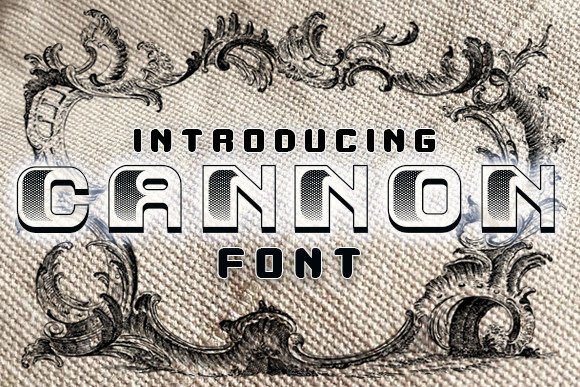
The Ultimate Guide to Cannon Font: Elevate Your Designs with a Retro 3D Twist
Ah, the thrill of working on a creative project, only to hit a roadblock when searching for the perfect font. I recall a particularly frustrating experience while designing a poster for a client’s music festival. The theme was retro-futuristic, and I needed a font that would transport the audience back to the ’80s. That’s when I stumbled upon Cannon Font – a game-changing, 3D retro typeface that instantly elevated my design.
An Honest Review of Cannon Font
What I Love About Cannon Font
- ✨ Retro 3D aesthetic: Cannon Font’s unique blend of nostalgic and futuristic elements makes it perfect for projects that require a bold, eye-catching look.
- ✅ Versatility: This font is incredibly versatile and can be used on various design materials, such as postcards, flyers, posters, banners, album covers, and more.
- 💥 Attention-grabbing: Cannon Font’s 3D effect and retro vibe are sure to grab attention and leave a lasting impression on your audience.
While Cannon Font is an excellent choice for many projects, there are a few things to keep in mind:
- 🤔 Legibility at small sizes: Due to its 3D nature, Cannon Font may become less legible at very small font sizes. It’s best to use it at larger sizes to maximize its impact.
- ⚠️ Overuse: As with any bold font, be cautious not to overuse Cannon Font. Balance is key to creating a visually appealing design.
The Backstory of Cannon Font
Cannon Font was inspired by the iconic, retro-futuristic designs of the ’80s and ’90s. Its creator, a talented type designer, aimed to capture the essence of a bygone era while infusing it with a modern twist. The result is a font that’s both nostalgic and fresh, perfect for designers looking to add a unique touch to their projects.
| What type of projects is Cannon Font best suited for? | Cannon Font is perfect for creative projects that require a bold, retro 3D look, such as music festival posters, album covers, flyers, and more. |